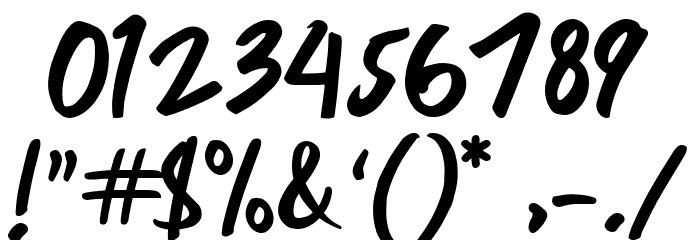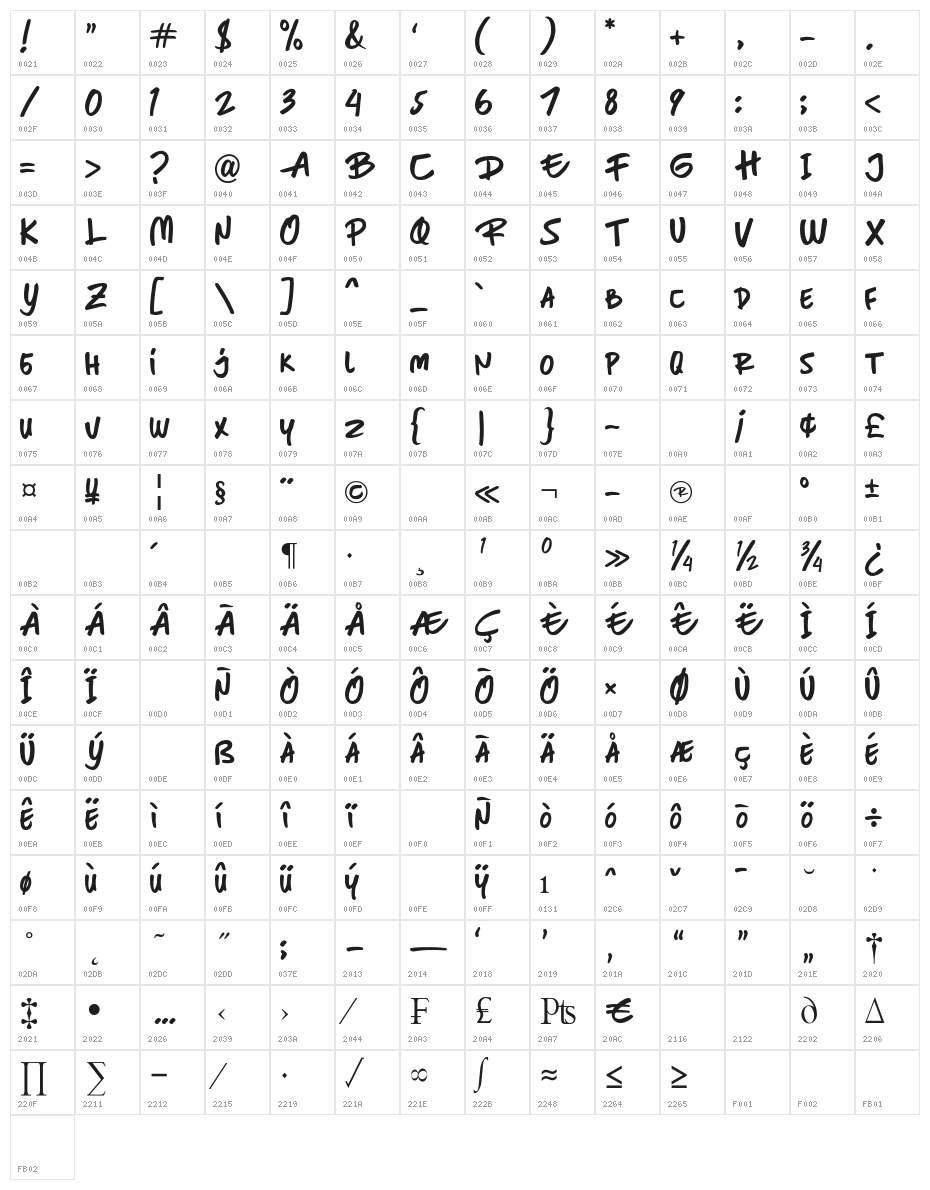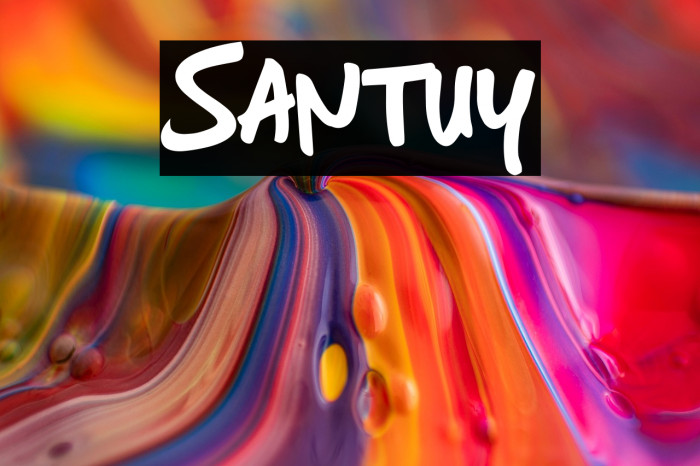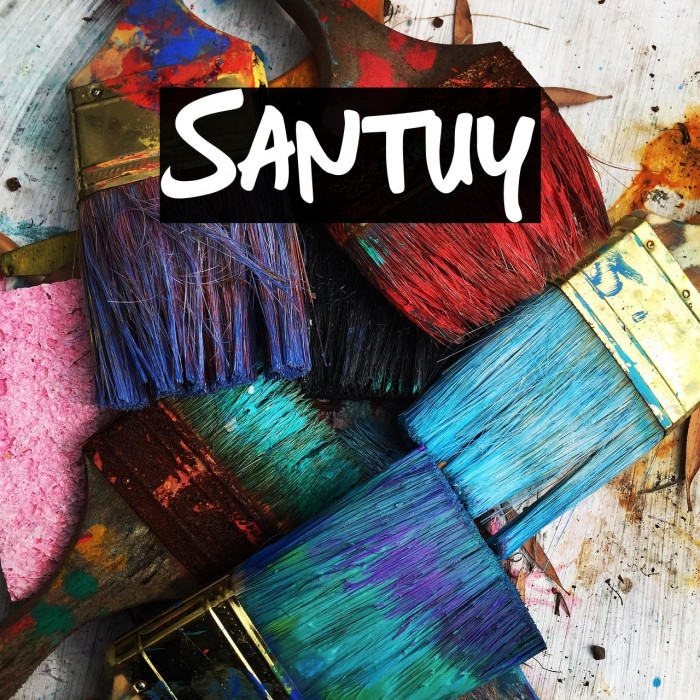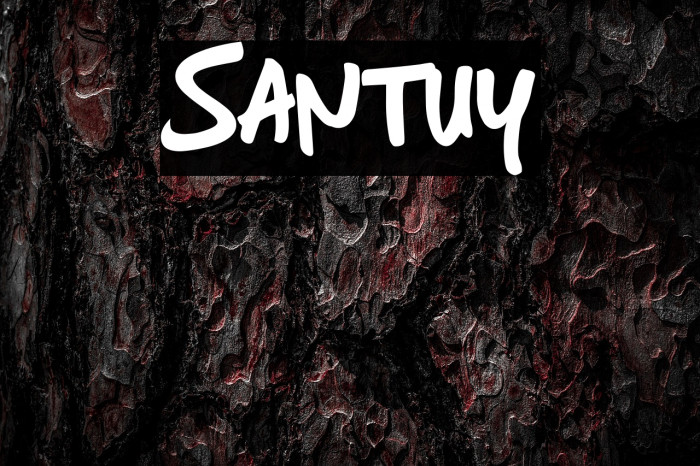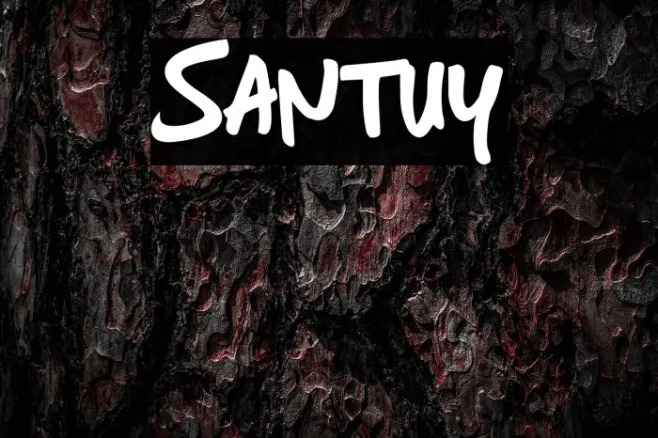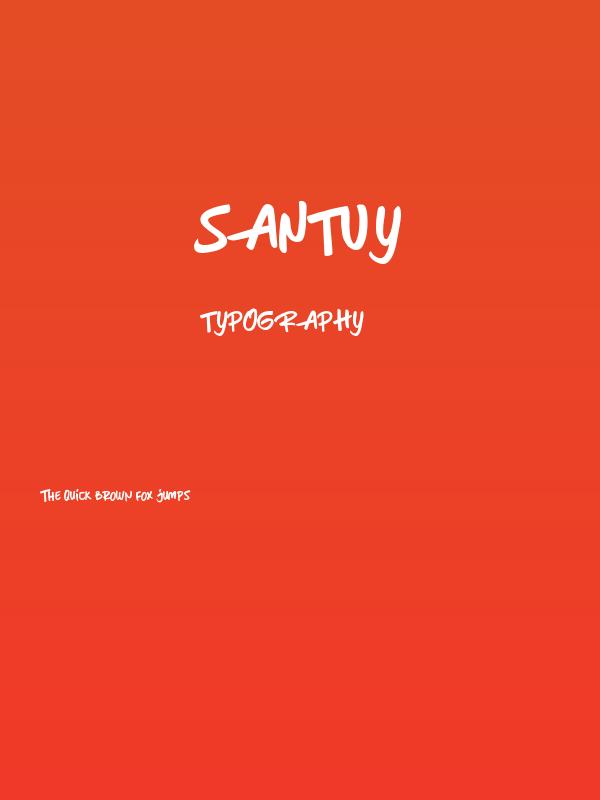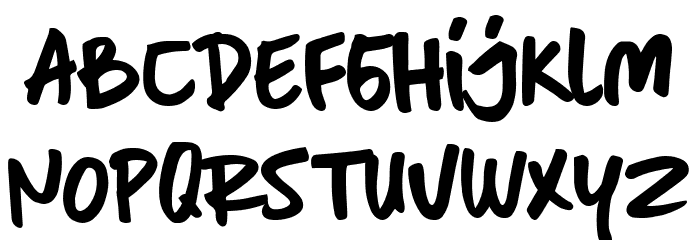
Santuy Font
Santuy Description
This font features a bold, energetic style with a handwritten appearance. The letters are slightly slanted, giving a dynamic and informal feel. The strokes are thick and consistent, with a playful and casual vibe. The uppercase and lowercase letters maintain a cohesive look, while the numbers and special characters are designed to match the overall aesthetic. This font is ideal for projects that require a personal touch or a lively, youthful energy.